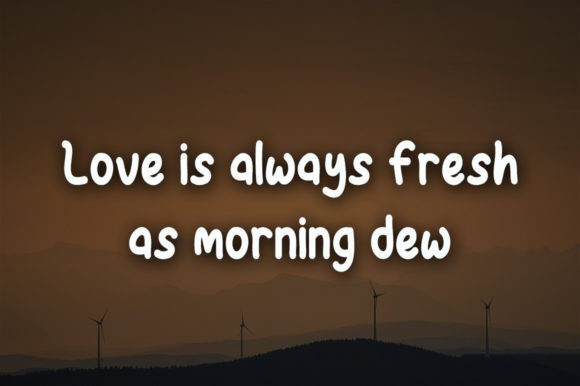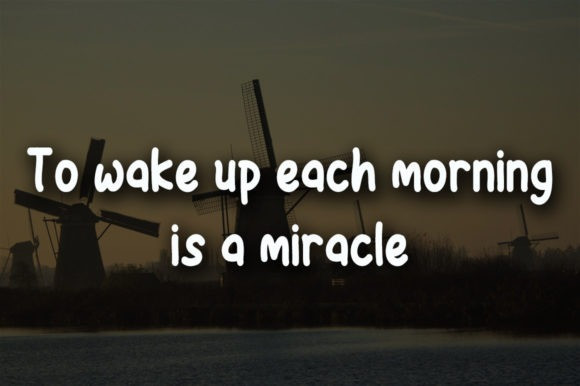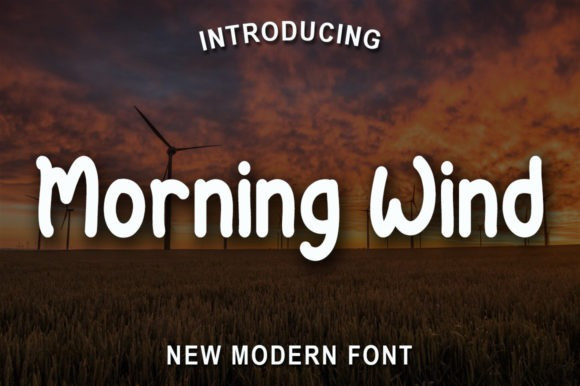
Morning Wind Font
Morning wind Font is a friendly handwritten font featuring well-rounded characters that seem to dance along the baseline. Add it to your most creative ideas, and notice how it makes them come alive!